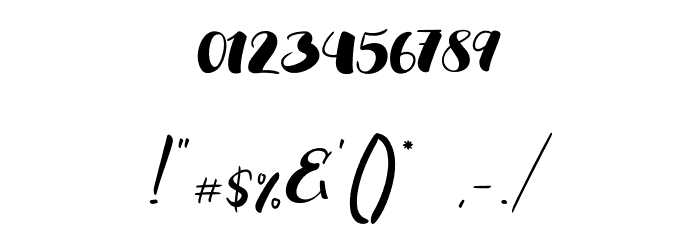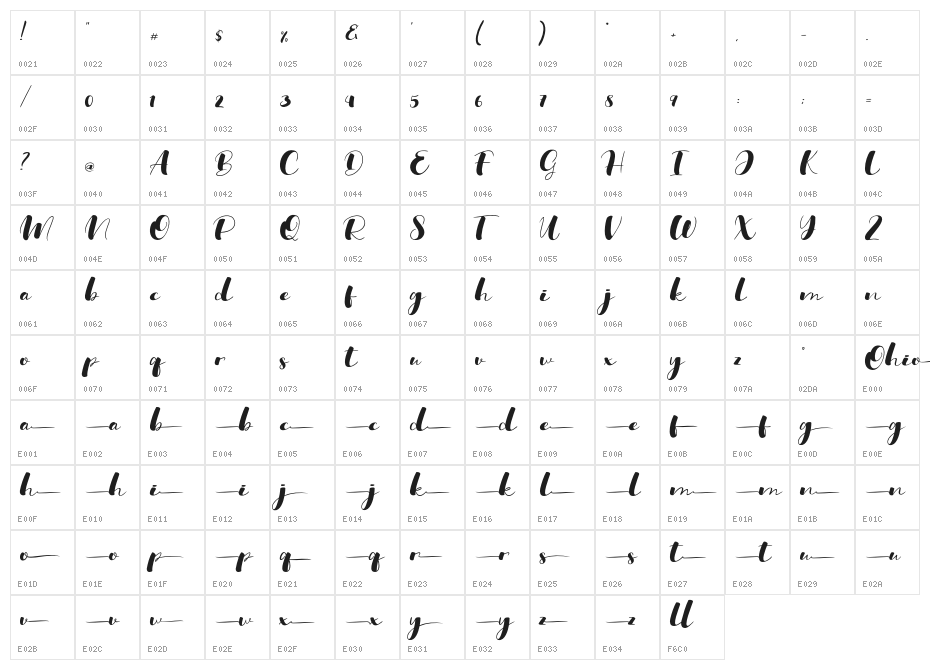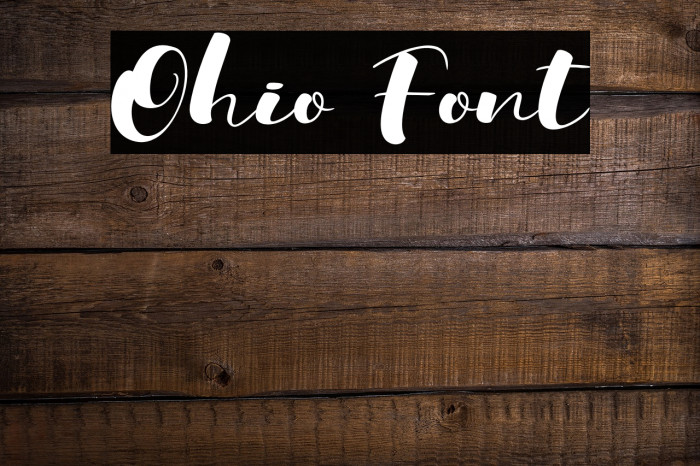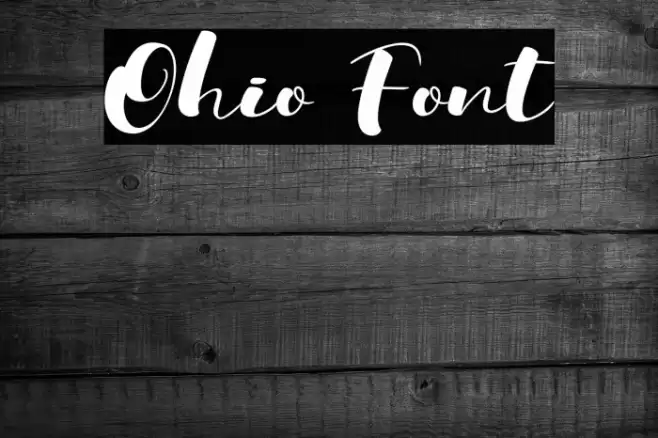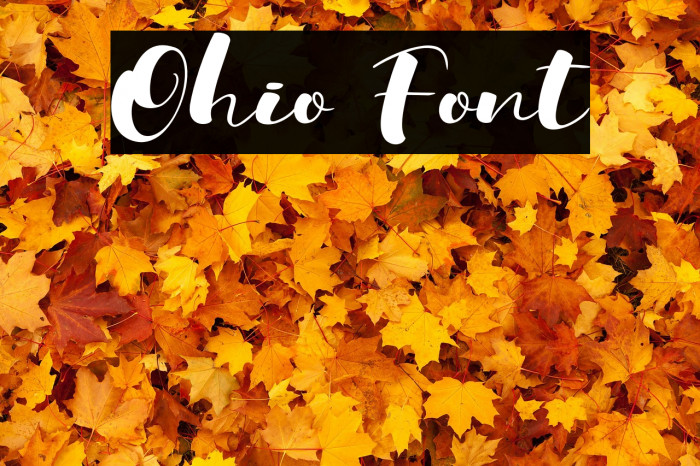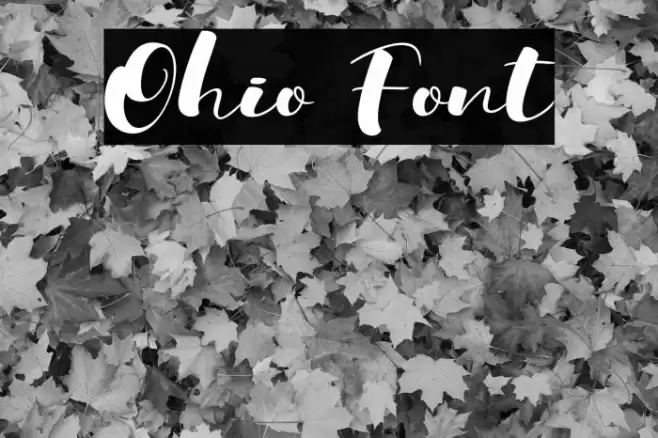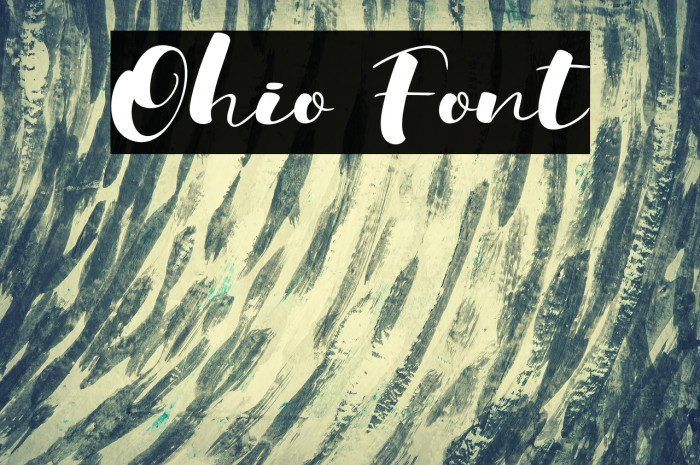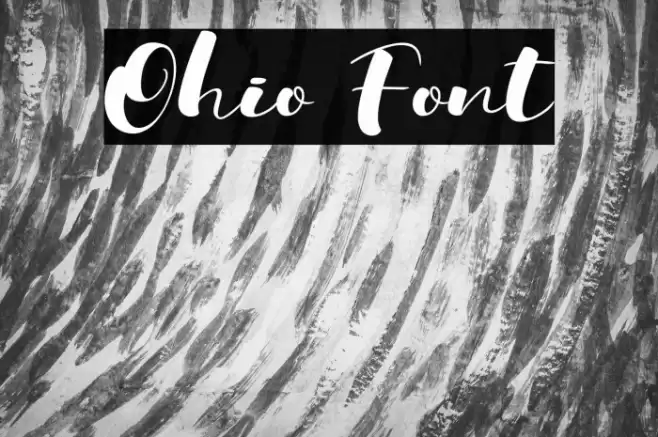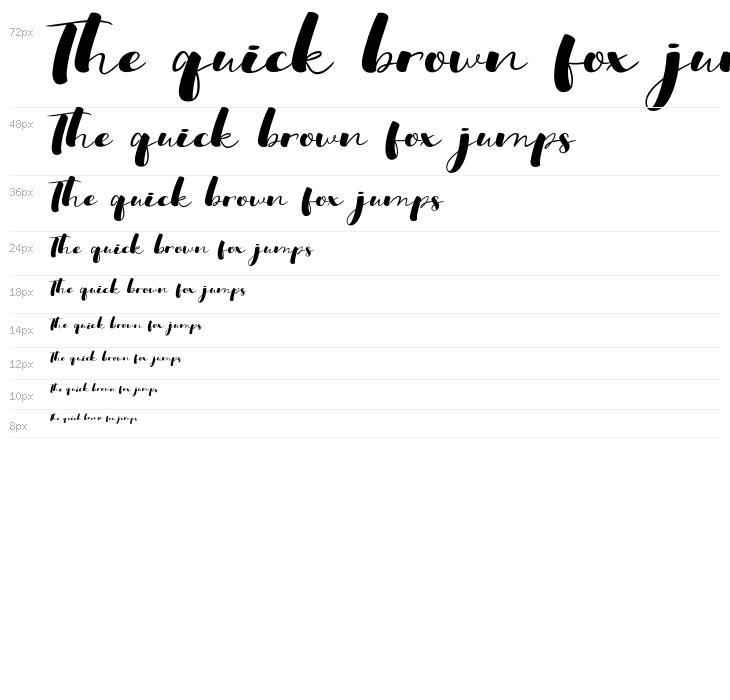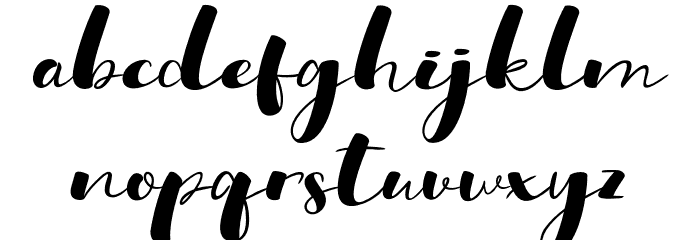
Ohio Font
This font features a flowing, cursive style that exudes elegance and sophistication. The letters are crafted with smooth, sweeping strokes that give a sense of fluidity and movement. The uppercase characters are bold and prominent, with a slight slant that adds a dynamic touch. The lowercase letters maintain a consistent style, with some characters extending below the baseline, enhancing the font's graceful appearance. The numerals are well-integrated, matching the overall aesthetic with their curvaceous forms. Special characters are included, maintaining the same stylistic approach, ensuring versatility in various design applications. This font is ideal for projects that require a touch of elegance and personal flair.
| Proposed Projects | Ideal for wedding invitations, branding, logo design, and elegant packaging. |